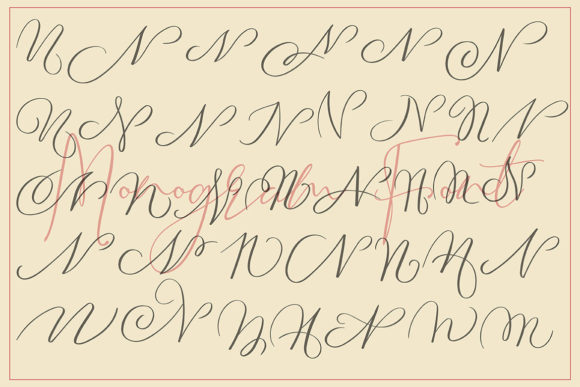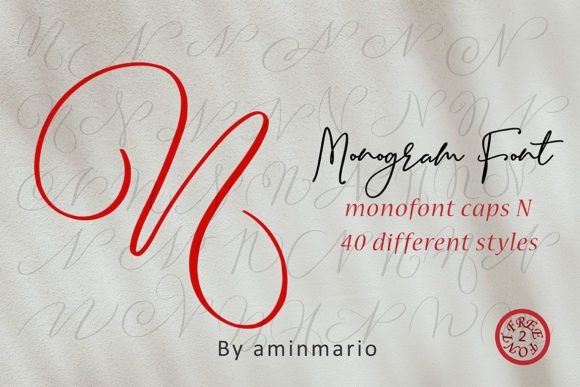
Monogram N | Monofont Caps N Font
This MONOGRAM is natural handwriting of capital N with 36 different styles.
This is not for writing words or sentences, but for monograms. Bonus 2 Font that contains the uppercase and lowercase to support it.